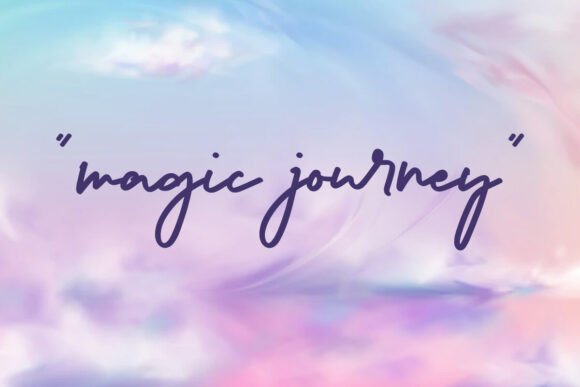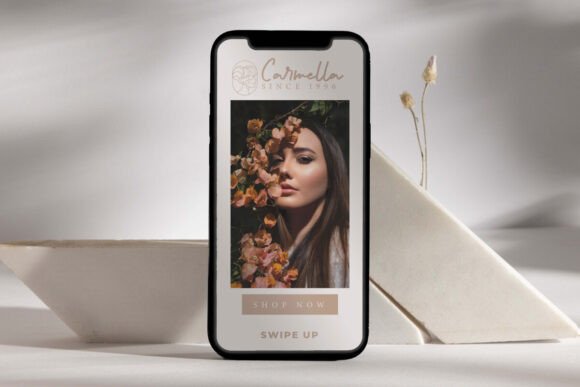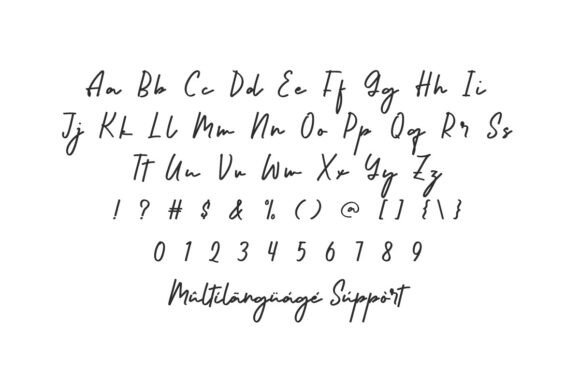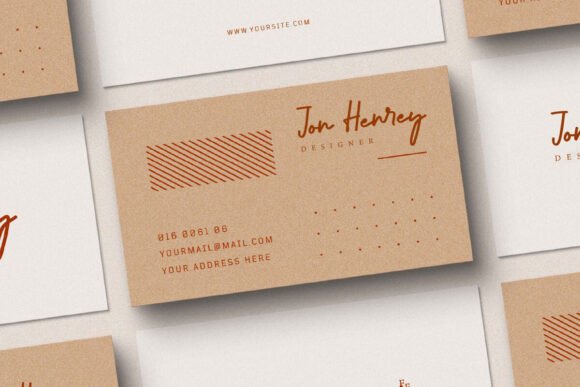
Magic Journey Font: Delicate Handwritten Font for Modern Branding
About the Magic Journey Font
The Magic Journey Font offers a perfect balance of form and function for your design needs. Magic Journey is a delicate modern and stylish handwriting font with a simple hand scripted style. It will bring beauty to your business, such as architect, bakery, cafe, cooking class, design interior, event organizer, fashion, florist, furniture, graphic design, handicraft, photography, printing, publishing, real estate, restaurant, retail, skincare, spa salon, writer, and many more.
Magic Journey’s delicate nature makes it ideal for short headlines, logos, and branding elements where its stylish script adds a touch of elegance. It works exceptionally well on invitations, short quotes within marketing materials, or as an accent font on packaging. However, its low x-height and thin strokes make it unsuitable for body text or extended reading. Avoid using it for UI elements or lengthy paragraphs.
To complement its feminine and sophisticated personality, pair Magic Journey with a clean sans-serif like Lato or Open Sans for body text, or a geometric sans-serif like Montserrat for a more modern feel. For a warmer contrast, consider pairing it with a classic serif typeface such as Garamond or Playfair Display.
The font exudes a modern, friendly, and slightly whimsical personality, making it suitable for brands focused on beauty, lifestyle, or artisanal products. Avoid using it for projects requiring a bold or serious tone.
Magic Journey Font Usage Examples
Magic Journey Font Example